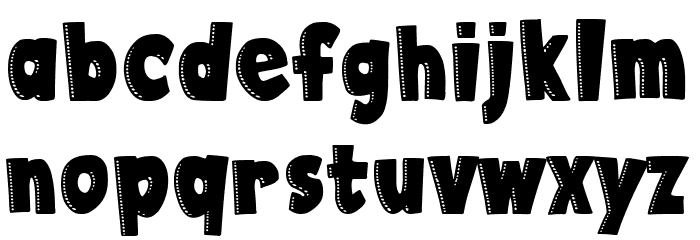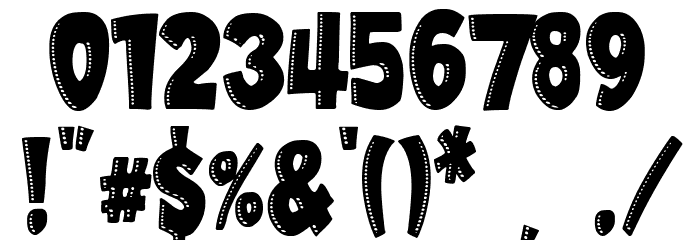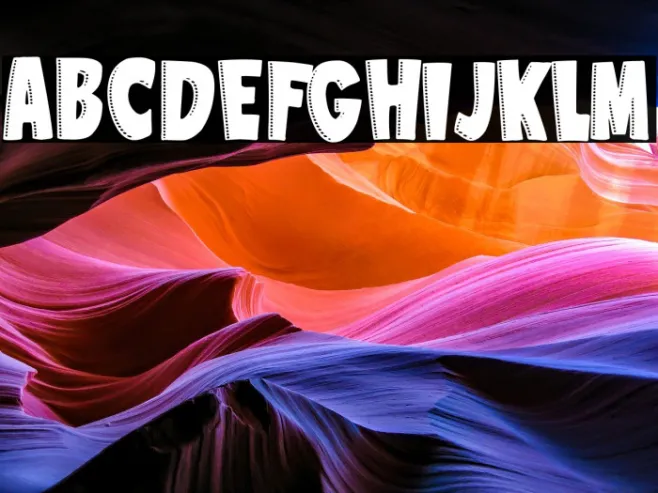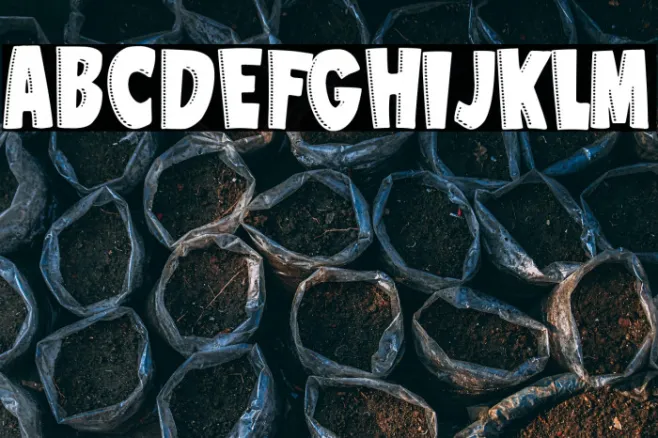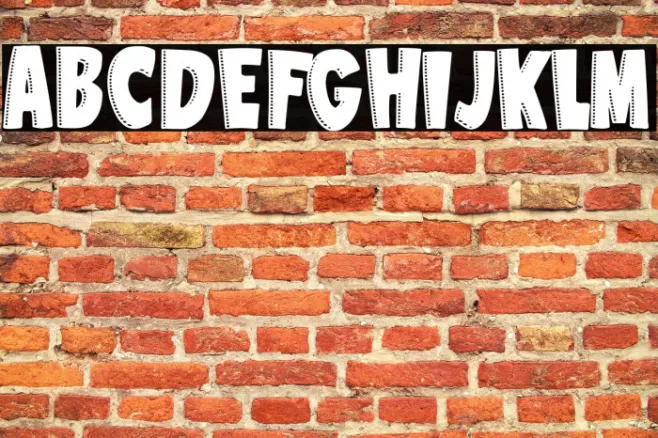
Clows Brotherhood Font
This font features a playful and bold design with a unique dotted texture along the edges of each character. The letters are thick and rounded, giving them a friendly and approachable appearance. The uppercase and lowercase letters maintain a consistent style, with a slight variation in size and shape to distinguish them. Numbers and special characters are designed with the same boldness and texture, ensuring a cohesive look across all elements. The font's whimsical style makes it ideal for projects that require a fun and engaging visual element.
A playful, bold font with a dotted texture and rounded characters.
- Font: Clows Brotherhood
- Proposed Projects: Ideal for children's books, playful branding, party invitations, and creative posters.
- Overall Style: Playful